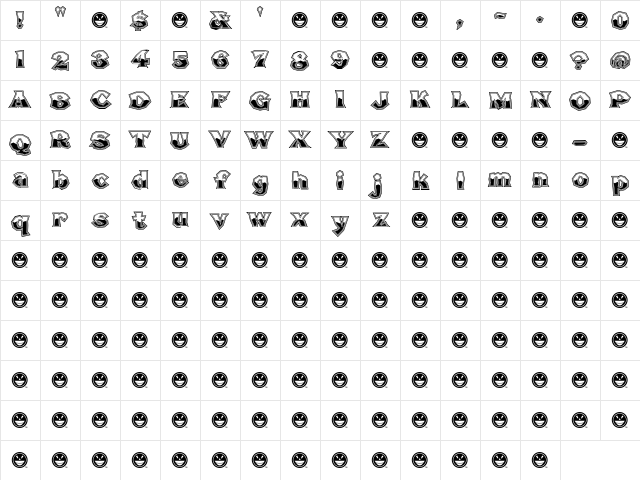
Complete Broken Poster Tour Busted Regular glyph index. Displaying only characters natively supported by Broken Poster Tour Busted Regular font.
Broken Poster Tour Busted is a composed and adaptable typeface that performs quietly and consistently across a wide range of design contexts.